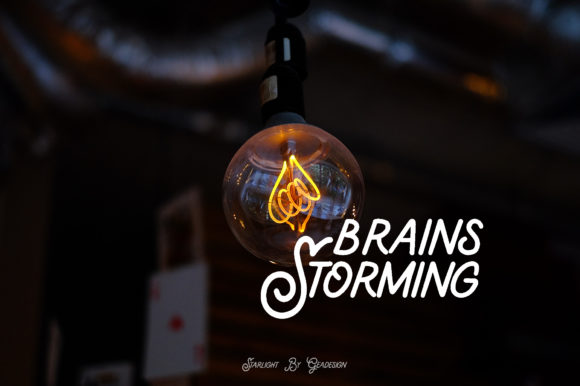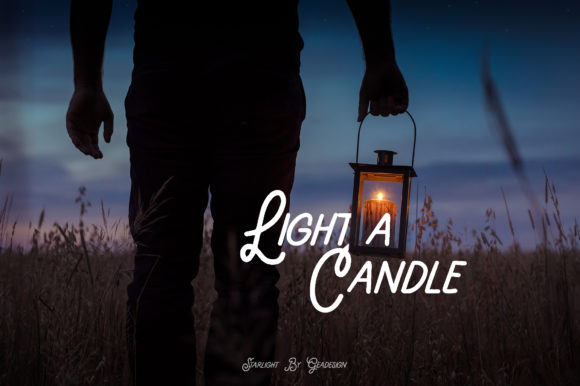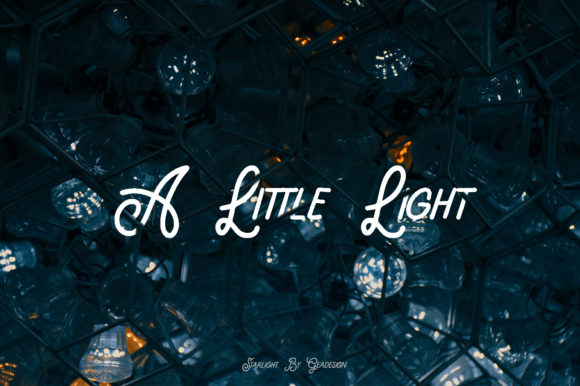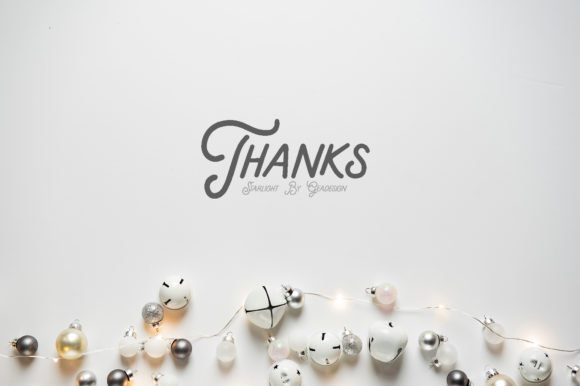
HomeScript FontsStarlight Font Script Fonts Starlight Font FacebookXPinterestWhatsApp Starlight Font Poster 2 Starlight Font Poster 3 Starlight Font Poster 4 Starlight Font Poster 5 About Starlight Font Starlight is a beautiful handwritten font. It will make any design project stand out! DOWNLOAD NOW People also explored Brilliant Font Widdershins Sunday Birthday Font Baby Smooth Font Black Ghost Font Cowboy Doodles Crime Gun Font Bordeaux Font Gesture Font 332 0 TagsStarlight Font Previous articleDanke Linda FontNext articleEstonia Font LEAVE A REPLY Cancel reply Comment: Please enter your comment! Name:* Please enter your name here Email:* You have entered an incorrect email address! Please enter your email address here Website: Save my name, email, and website in this browser for the next time I comment. Personal Use Free Heart Memory Personal Use Free Read more about this font Gagalin Personal Use Free Read more about this font Rasiday Personal Use Free Read more about this font Sweet Cake Personal Use Free Read more about this font BLOG 5 Fonts That Will Dominate Design Trends in 2026 5 Fonts for 2026 That Will Dominate Design Trends Typography plays a critical role in visual communication, and as we look ahead to 2026, it’s... Fonts That Capture the Spirit of New York City Where to Buy American Fonts Online in 2024 To increase your work productivity, choose the most readable fonts.